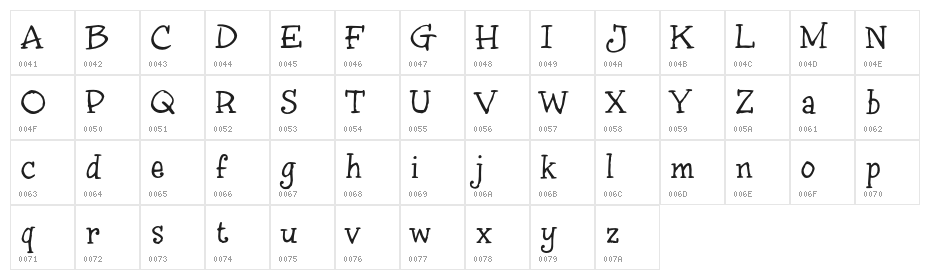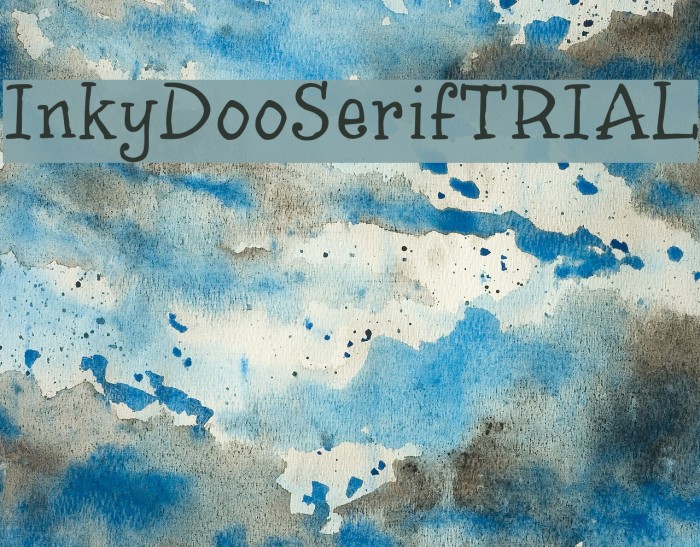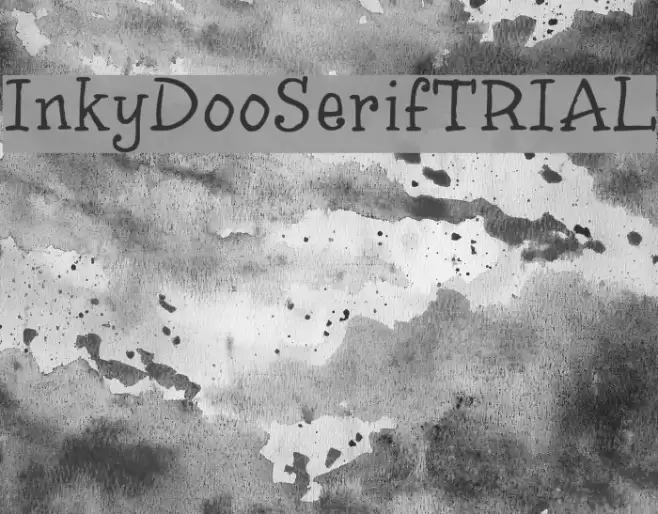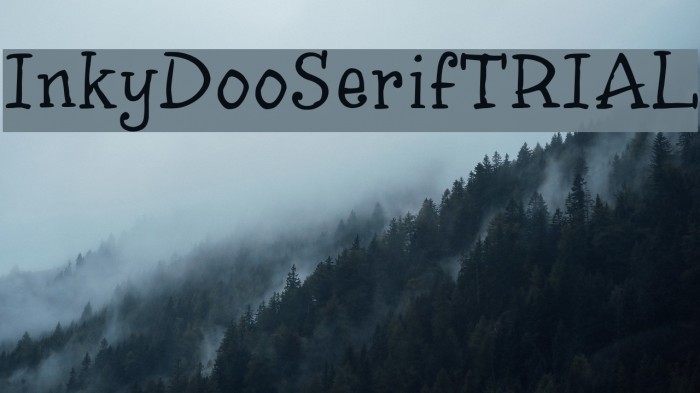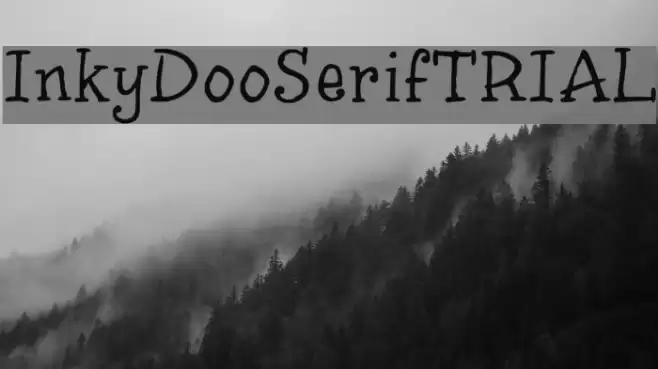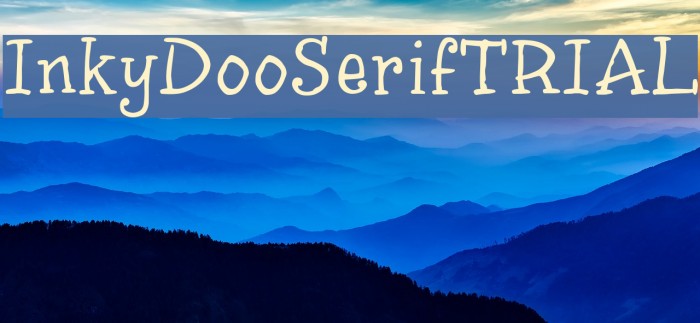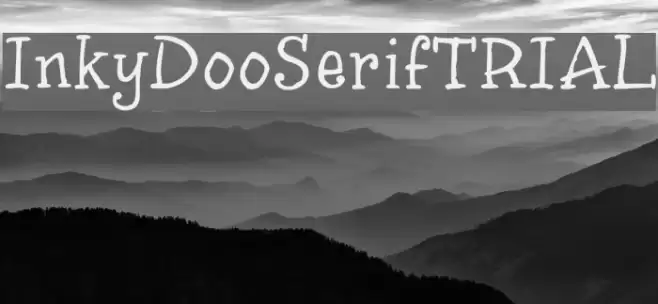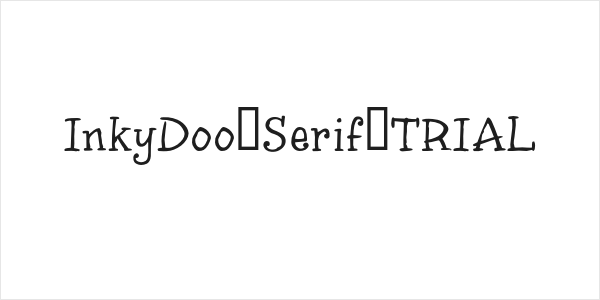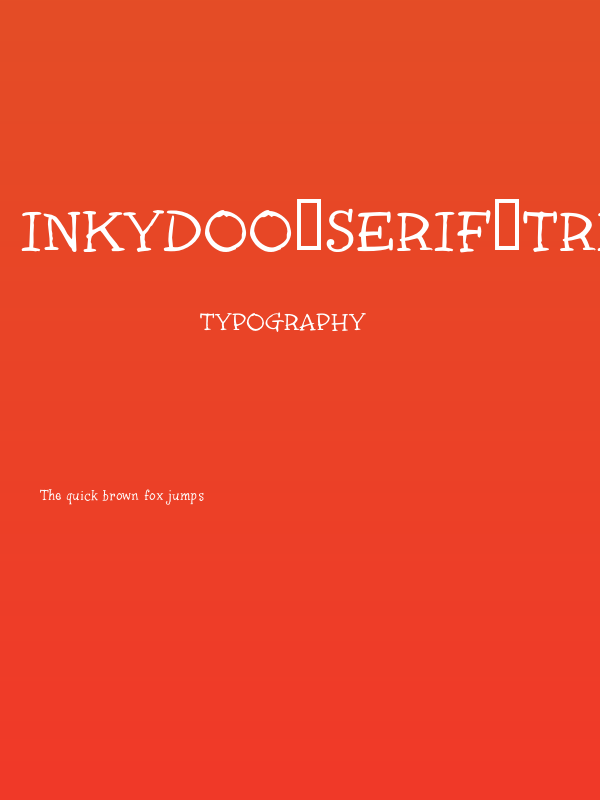
InkyDoo_Serif_TRIAL Font
InkyDoo_Serif_TRIAL Description
This font features a playful and whimsical design, characterized by its uneven strokes and hand-drawn appearance. The letters have a slightly irregular baseline, giving them a casual and informal look. The serifs are subtle and add a touch of elegance without overpowering the overall playful style. The lowercase letters have a charming, almost childlike quality, while the uppercase letters maintain a sense of structure and readability. This font is perfect for projects that require a fun and approachable aesthetic, such as children's books, greeting cards, or creative branding. Its unique style makes it stand out while remaining legible and versatile.
| Overall Style | Whimsical |
| Proposed Projects | Ideal for children's books, greeting cards, creative branding, and playful designs. |